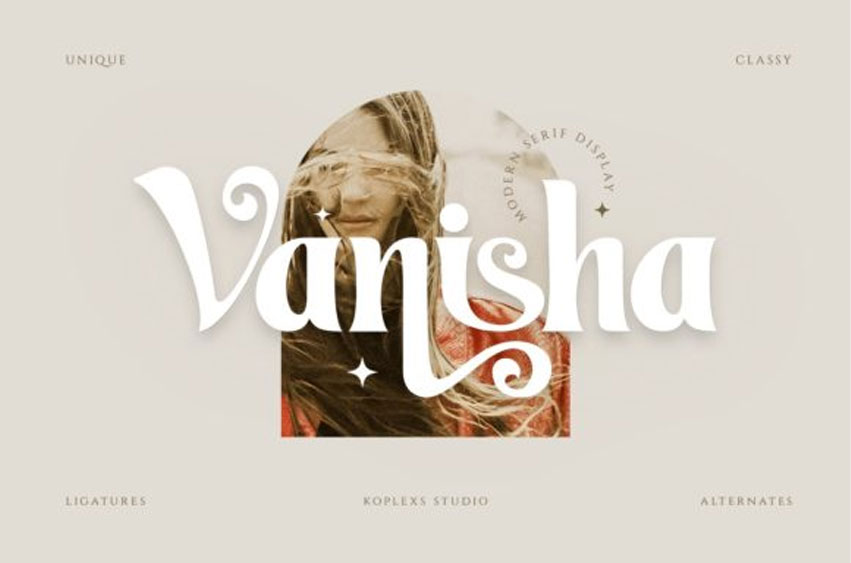
Vanisha Font is a modern serif font with beautiful ligatures, tons of special alternative glyphs, ornaments, and multilingual support. It’s a versatile font that works great in large and small sizes.
Vanisha is perfect for many creative projects such as logos, clothing branding, product packaging, magazine headers, wedding invitations, personal branding, posters, etc.